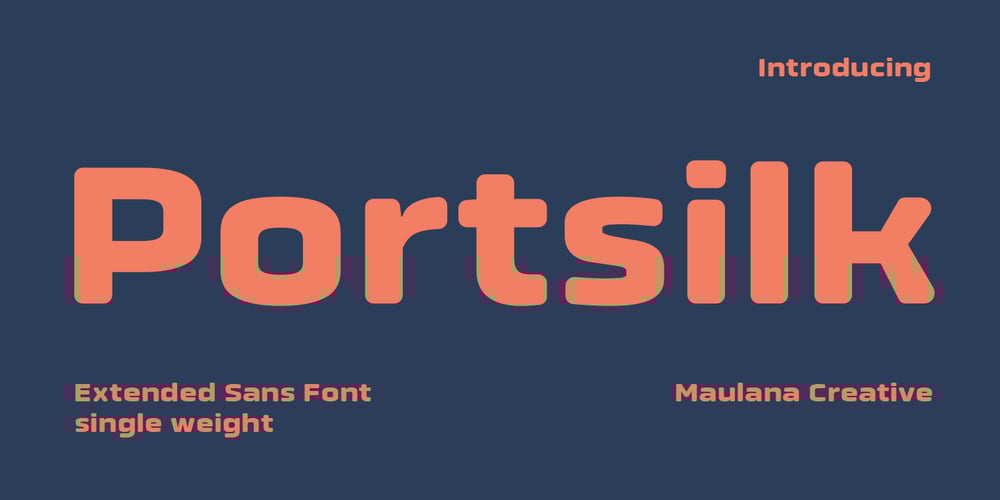
Portsilk
Portsilk font
Portsilk Font Family was designed by Gilang Maulana and published by Maulana Creative. Portsilk contains 1 styles and family package options. Portsilk is wide clean round sans display font, inspired by legendary Eurostile. Bold stroke, fun character with a bit of ligatures and alternates. To give you an extra creative work. Portsilk font support multilingual more than 100+ language. This font is good for logo design, Social media, Movie Titles, Books Titles, a short text even a long text letter and good for your secondary text font with script or serif. Make a stunning work with Portsilk font. Cheers, Maulana Creative